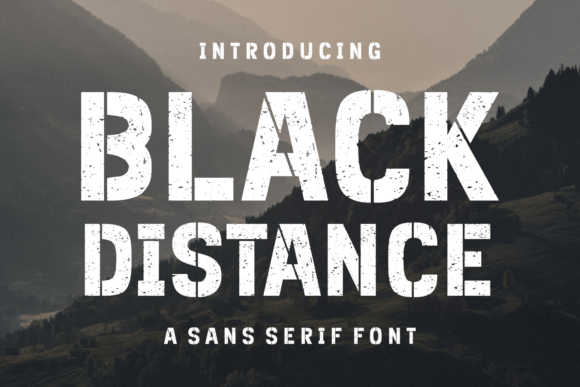
The Perfect Blend of Vintage Charm and Bold Precision
As a designer, you know the thrill of stumbling upon that one font that brings your entire project to life. For many of us, that moment comes when we discover a font that perfectly captures the essence of our vision. For me, that moment came when I first laid eyes on the Black Distance Font. Its elegant strokes and distinctive features had me hooked from the start.
The Black Distance Font is more than just a font – it’s a tool that breathes life into your work. Whether you’re designing a fashion label, a book cover, or a branding material, this font family is sure to impress. Its versatility and consistency make it a valuable asset for designers looking to create unique and memorable designs. With its regular variations, you can rely on the Black Distance Font to deliver time and time again.
Black Distance Font Key Features
• Unique Characteristic: Geometric sans-serif design with a futuristic and minimalist aesthetic
• Language Support: Supports a wide range of languages, including Latin, Cyrillic, and Greek scripts
• Kerning and Ligatures: Includes advanced kerning and ligature pairs for professional typography
Designer Review: Black Distance Font
Black Distance Font is an interesting sans-serif typeface that caught my attention. Here’s what I think:
• Unique geometric shapes and bold lines create a modern aesthetic.
• The font is highly legible, making it suitable for both digital and print media.
• Black Distance Font comes in a range of weights and styles, allowing for versatile use in different design projects.
• The font’s geometric style may not be to everyone’s taste, and it may clash with more traditional or ornate designs.
• The font’s weight distribution can be uneven at times, which may affect readability in certain contexts.
• The font family is not as extensive as some other popular sans-serif fonts, which may limit its use in more complex design projects.
Black Distance Font is a solid choice for designers looking for a modern and bold sans-serif typeface. While it may have some limitations, its unique aesthetic and high legibility make it a great option for a wide range of design projects. I’d definitely consider using it in the right context, but it may not be the best fit for every project.
For optimal results, use the Black Distance Font with a dark or bold background to create a striking visual effect. Experiment with different font sizes and styles to achieve the desired look.
The Black Distance Font is ideal for creating bold, eye-catching headings, titles, and captions. It’s also suitable for use in graphic design, branding, and digital marketing materials.
Alternatives to Black Distance Font
Montserrat is a sans-serif font designed by Julieta Ulanovsky. It is a popular choice for designers due to its clean and modern aesthetic. Montserrat is suitable for headings and titles, making it a great alternative to Black Distance Font for titles and headings that require a strong, urban feel.
Compared to Black Distance Font, Montserrat is more versatile and can be used in a wider range of contexts. However, Montserrat lacks the industrial feel of Black Distance Font, making it a better choice for more general design projects.
Inter is a modern sans-serif font designed by Rasmus Andersson. It is highly legible and versatile, making it a great choice for designers who want a clean and minimalist aesthetic. Inter is suitable for body text and headings, making it a great alternative to Black Distance Font for projects that require a neutral and professional tone.
Compared to Black Distance Font, Inter is more neutral and lacks the industrial feel of Black Distance Font. However, Inter is more versatile and can be used in a wider range of contexts, making it a great choice for designers who want a clean and modern aesthetic.